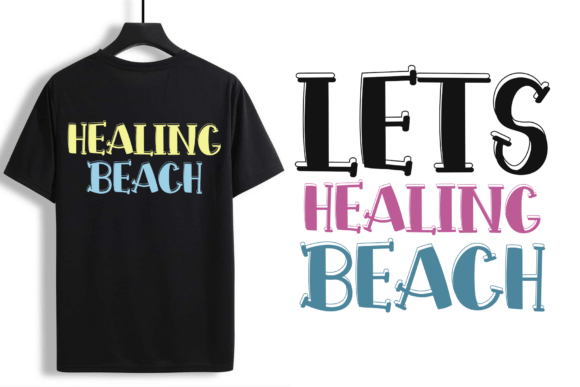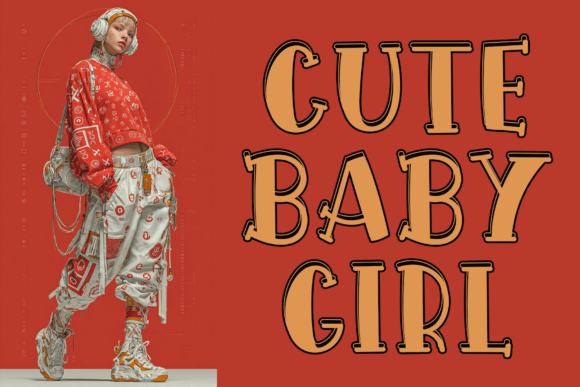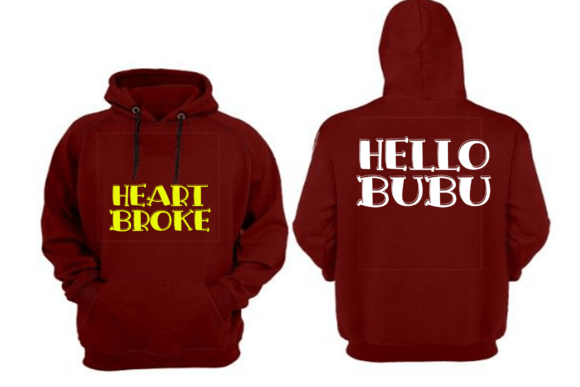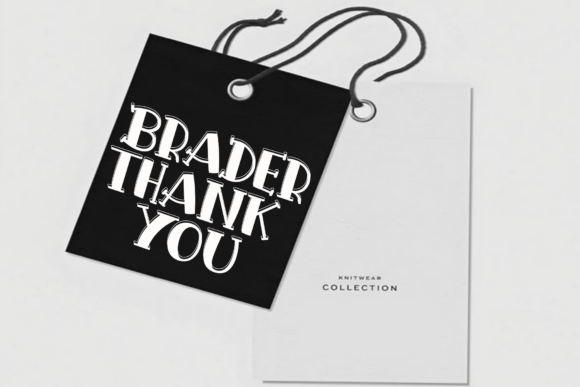
Introduction to Smart Living Font Font
Fonts play a crucial role in design, and the Smart Living Font font is a typeface that brings both character and versatility to any project. Whether you’re working on a branding project, a website, or a print design, the Smart Living Font font offers a unique style that can elevate your work.
Smart Living is a stylish handwritten font with a contemporary atmosphere and impeccable form, inspired by a timeless classic calligraphy.
Balanced and varied, this font was designed to enhance the beauty of your projects .
Key Features of Smart Living Font Font
Why Choose Smart Living Font Font?
The Smart Living Font font is more than just a typeface – it’s a design tool that helps you communicate your message with style and clarity. Its unique character set and versatile design make it suitable for a wide range of applications, from elegant invitations to bold headlines.
With its carefully crafted letterforms and balanced proportions, the Smart Living Font font ensures readability and visual appeal across all mediums.
What makes Smart Living Font font special?
The Smart Living Font font stands out with its unique design, exceptional readability, and versatility across various design applications.